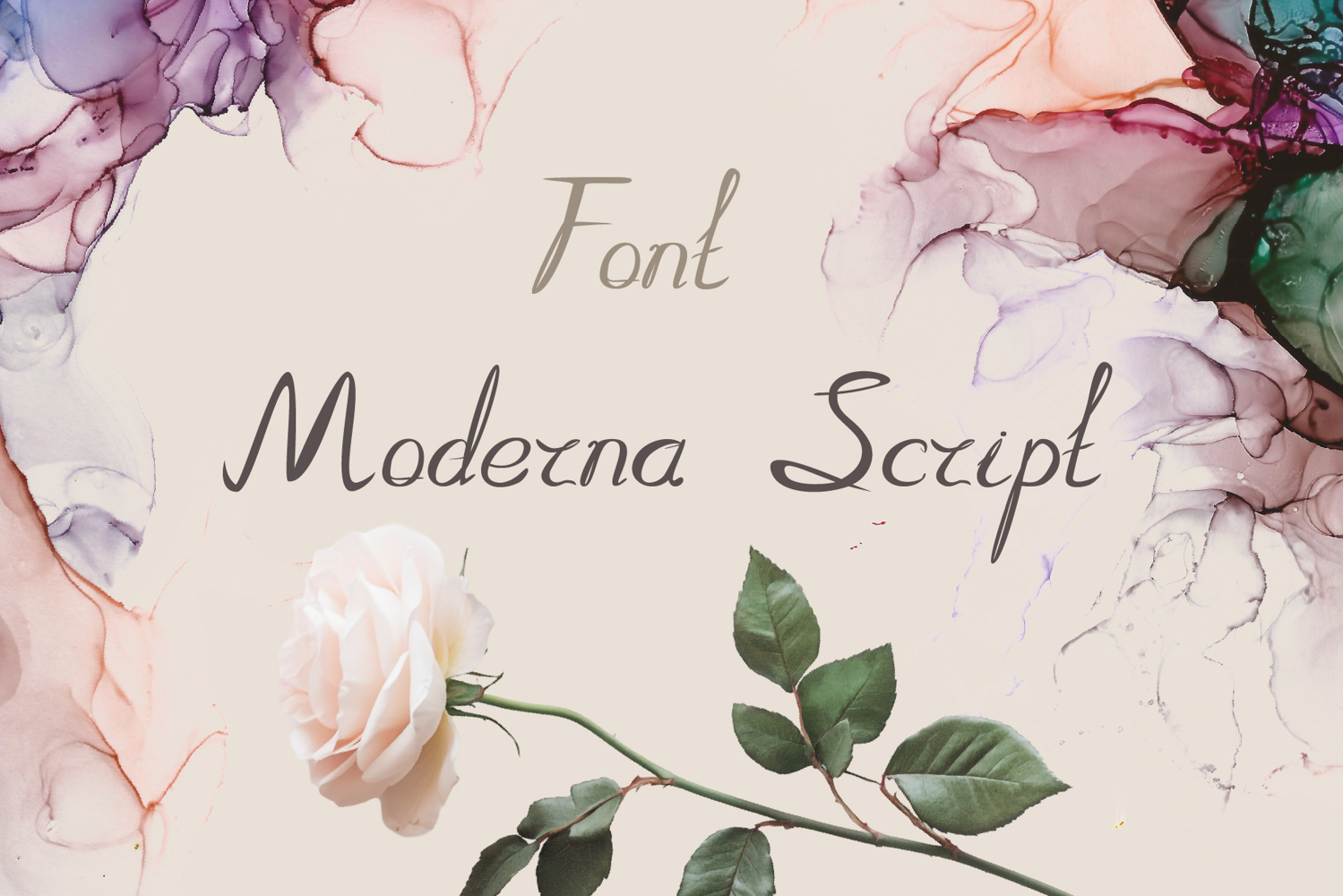
Moderna Script
Modern and Elegant Handwriting Font
Moderna Script is a modern and elegant handwritten font that combines the natural flow of calligraphy with a clean, contemporary style. Its smooth lines and graceful slant make it perfect for adding a sophisticated touch to your designs.
This font includes Cyrillic and Latin character sets, supporting a wide range of languages. With OpenType ligatures, it automatically connects common letter pairs for a truly authentic handwritten feel.
Moderna Script is ideal for branding, wedding invitations, social media, and packaging. It's the perfect choice for anyone looking for a stylish and versatile script font.